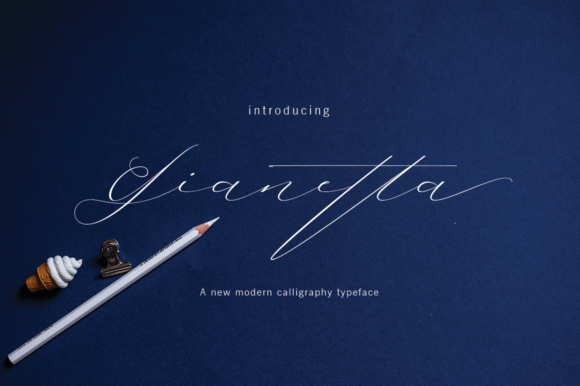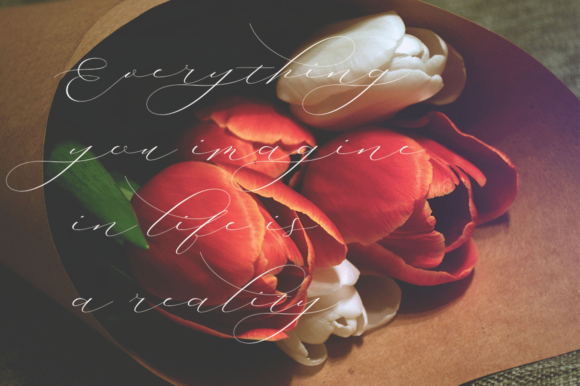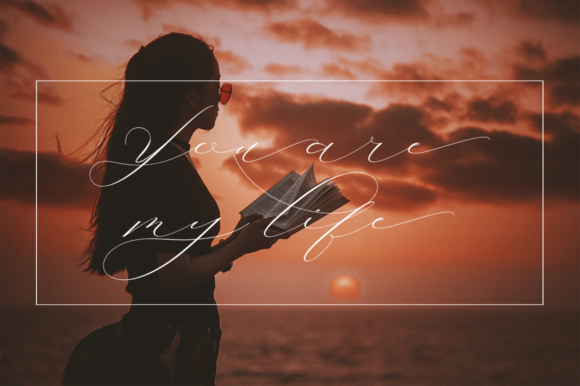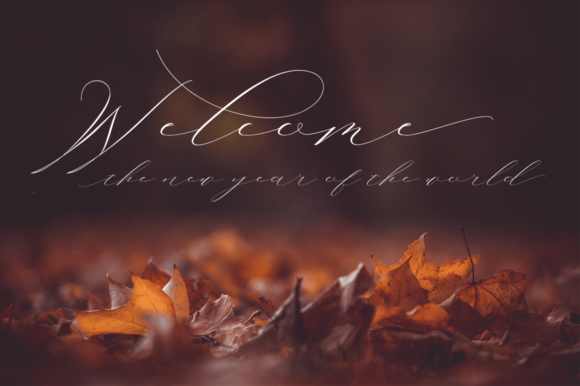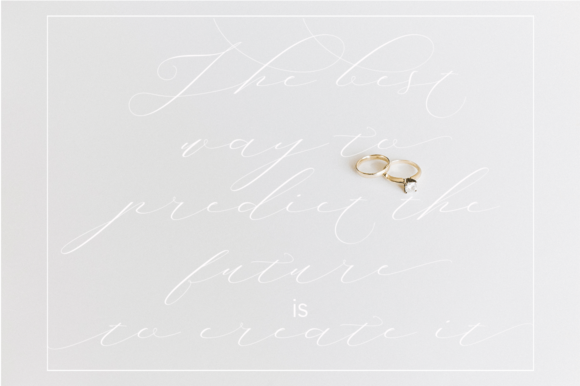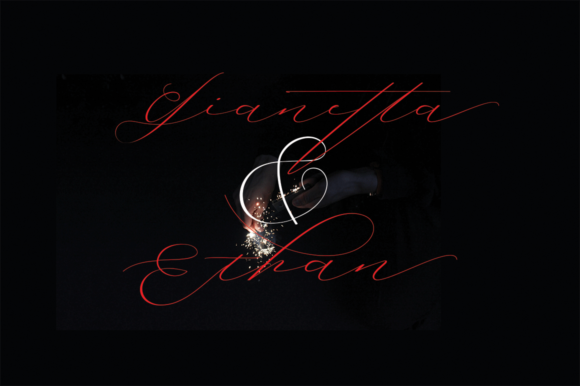
Gianetta Font
About Gianetta Font
The Sully is a modern calligraphy font. It has natural characteristics and is perfect for invitations, signatures, blogs, social media, business cards, and much more!